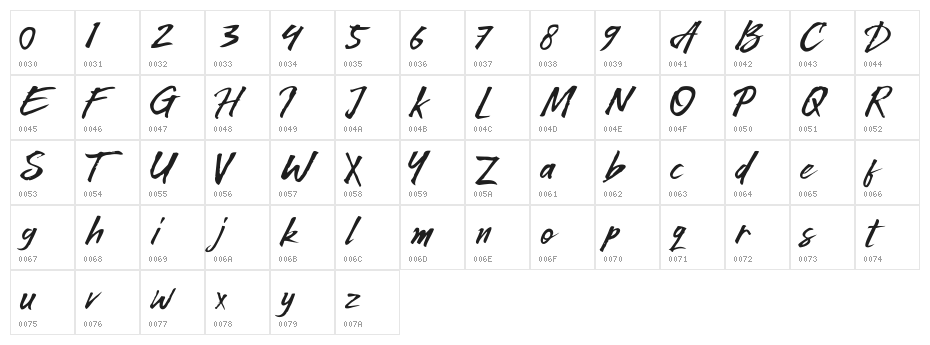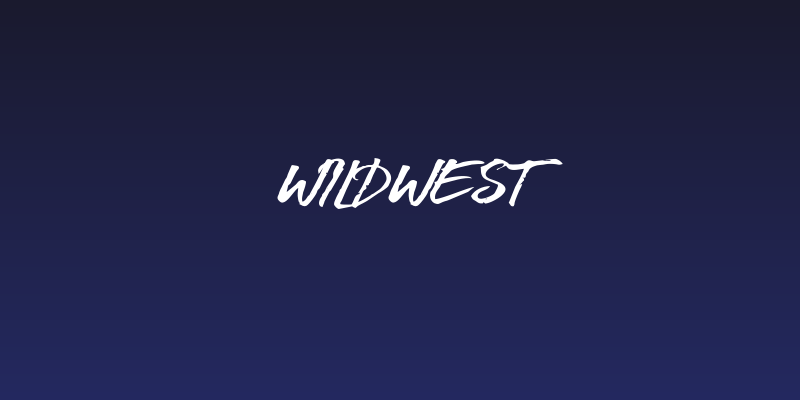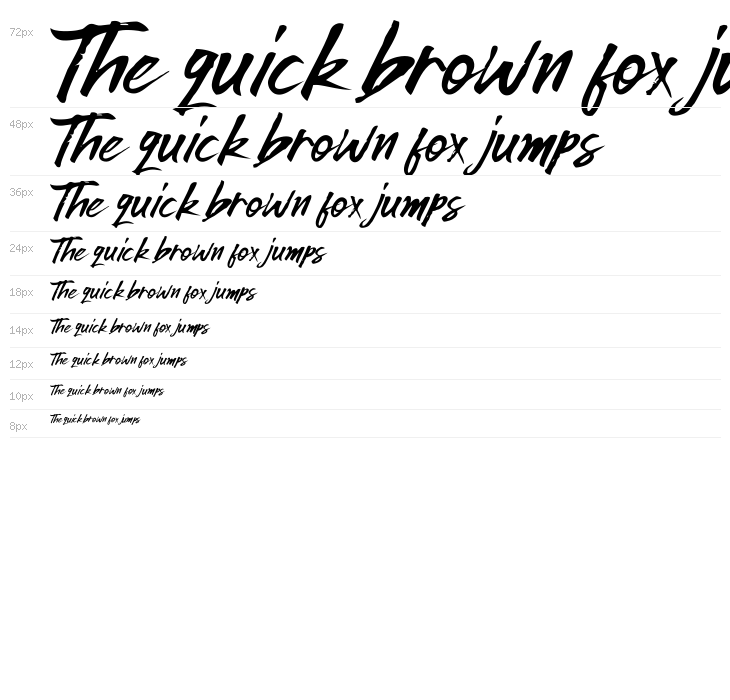
Wildwest Font
Wildwest Description
This font exudes a bold and adventurous spirit, reminiscent of the untamed Wild West. Its brush-like strokes and dynamic curves convey a sense of movement and energy, making it perfect for projects that require a touch of rugged individuality. The uppercase letters are particularly striking, with their sweeping lines and dramatic flair. The lowercase characters maintain the same energetic style, ensuring consistency throughout. Numbers and special characters are equally expressive, adding to the font's versatility. Overall, this font captures the essence of a frontier spirit, making it ideal for designs that aim to evoke a sense of adventure and freedom.
| Proposed Projects | Ideal for posters, branding, and any design needing a bold, adventurous touch. |